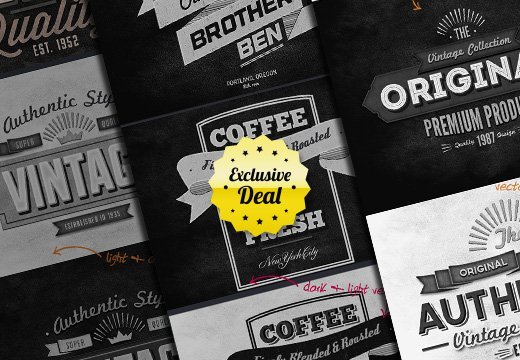
Use Vintage Typography Fonts For Your Designs!
Are you looking for vintage typography fonts to use in your designs?
We’ve prepared a special collection just for you. Discover 40 retro fonts perfect for creating unique banners, insignias, and ribbons. Whether you’re a beginner or a pro, this will be a great addition to your design library!
Use these resources for any project you can think of, from badges and logos to t-shirt designs, flyers, menus, and other printed materials.
Preview Of The Vintage Typography Fonts: